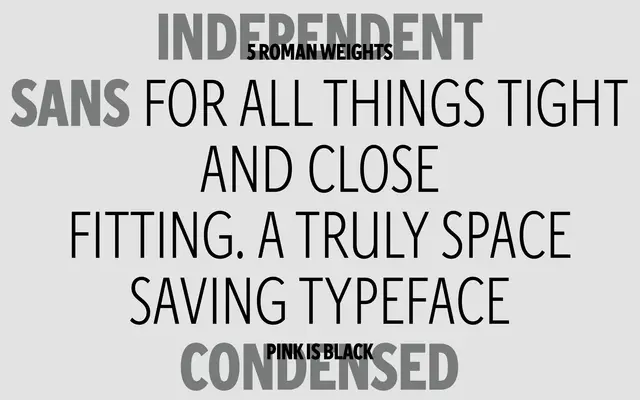
Independent Sans Condensed
A2-Type · 2013
The condensed cut of A2-Type's commissioned type system for The Independent newspaper, designed in 2013 for tight print and digital column work.
Part of a large interconnected type family built for The Independent's daily print and digital editions, this condensed sans shares underlying structure and proportions with the wider Independent suite. Five weights run from Light to Black, suited to headline stacking and space-constrained layouts. The broader Independent family won a D&AD Yellow Pencil in 2014 and the Typeface Design prize at the Tokyo TDC in 2015.
A condensed cut of a newspaper sans-serif, sharing proportions with the broader Independent family; the narrow width and functional weight range place it firmly in the grotesque tradition suited to editorial column settings.